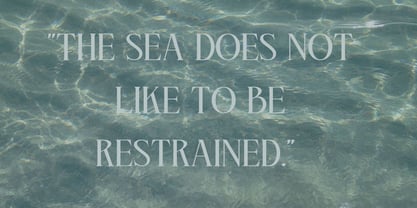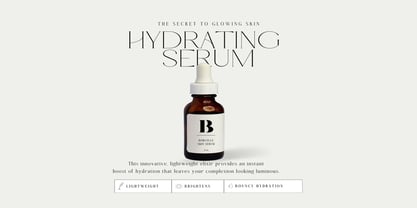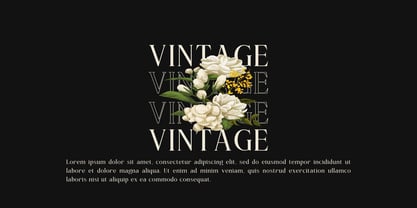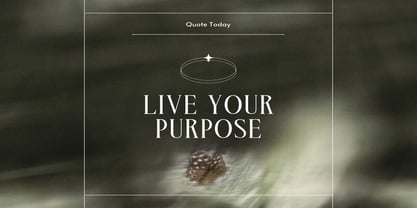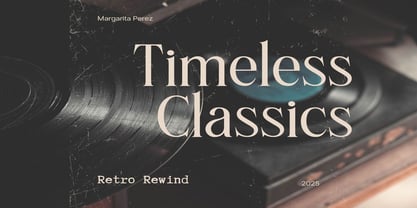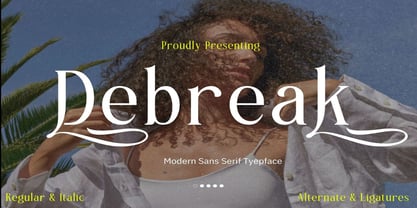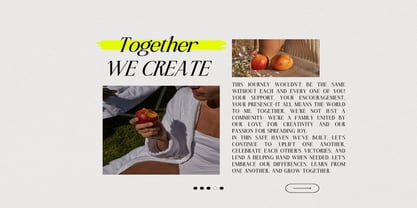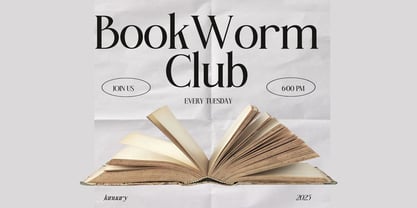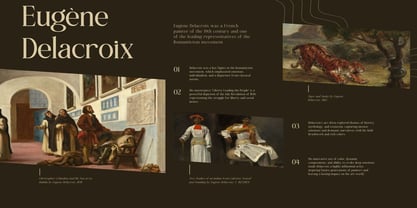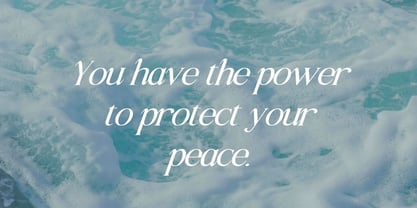
Debreak
by Dream Font
The Debreak Font Family was designed by Stanley Davis and published by Dream Font. Debreak contains 2 styles and family package options. More about this family
A perfect blend of classic elegance and modern design, Debreak Typeface is a versatile and sophisticated serif font designed to captivate. Whether you’re working on high-end branding, editorial layouts, or creative projects that demand a luxurious touch, Debreak brings unparalleled elegance to the table.
This typeface features two beautifully crafted styles—Regular and Italic—giving you the freedom to mix and match for diverse design needs. Each style is carefully designed with clean lines, subtle contrasts, and soft curves, making Debreak equally suitable for formal applications and creative expressions.